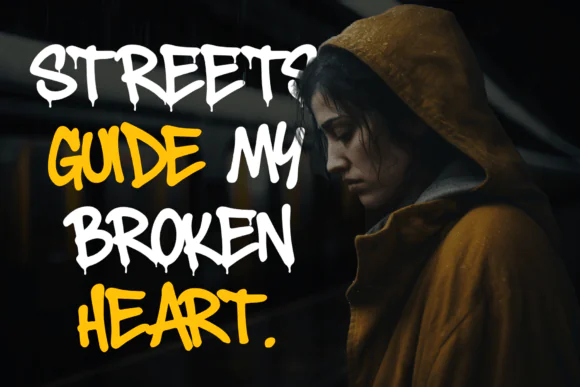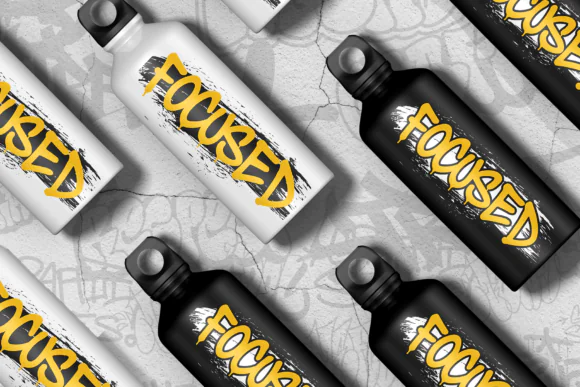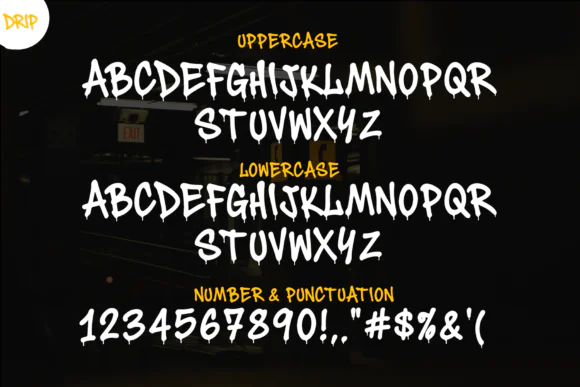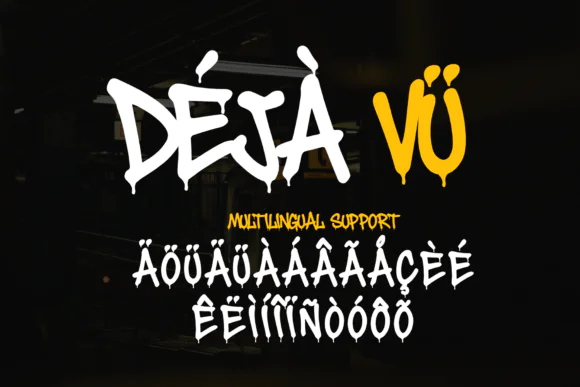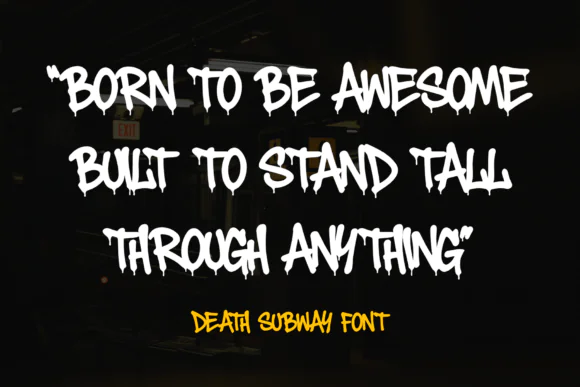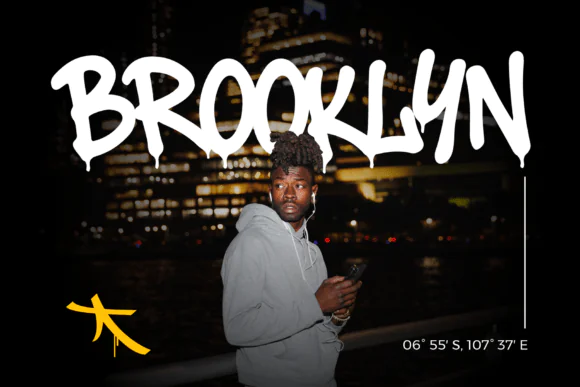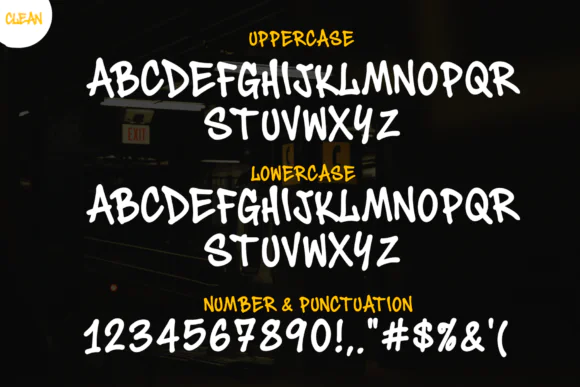
Death Subway Graffiti Font | Raw Urban Street Art Typeface with Clean & Drip Styles for Logos, Posters, Apparel, Stickers, Album Covers & Streetwear Branding
Bring raw underground energy into your creative projects with Death Subway Graffiti Font, a bold handstyle graffiti typeface inspired by subway walls, street tagging, spray-paint culture, and urban rebellion. This font is designed for artists, designers, streetwear brands, musicians, and creators who want to add an authentic graffiti look to their visuals.
Death Subway comes with two expressive styles: Clean and Drip. The Clean style gives you sharp, readable graffiti lettering with structured strokes, making it perfect for branding, posters, logos, and typography designs that need strong impact while staying clear. The Drip style adds a fresh spray-paint effect with dripping details, giving your text a more rebellious, energetic, and street-inspired look.
Each letter has an imperfect handmade feel, capturing the natural flow of marker lines and graffiti tags. Whether you are designing album covers, streetwear graphics, event flyers, stickers, merchandise, social media posts, or urban posters, this font adds confidence, attitude, and expressive style to your work.
• Graffiti-style logos
• Streetwear branding
• T-shirt and hoodie designs
• Album covers
• Music posters
• Stickers and decals
• Event flyers
• Urban merchandise
• Product packaging
• YouTube thumbnails
• Magazine titles
• Digital ads
• Spray-paint style artwork
• Bold headline typography